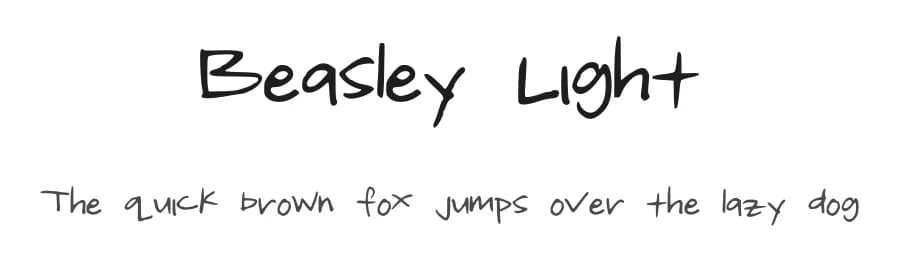
About Beasley Light Font
Beasley Light is a script & handwritten font designed by Huntley-Rodgers. It includes 143 glyphs, a extralight weight, TTF (TrueType) format, and 133 languages. Beasley Light is free to download; check the license details on this page before commercial use. Script & handwritten fonts like Beasley Light work best for wedding invitations, greeting cards, signatures, and elegant branding.
- Ultra-light, Elegant, Flowing, Script
Beasley Light Font is a script font that shines as a display or heading face. Pair it with a clean sans-serif or serif font for body text β the contrast creates a clear hierarchy while the two styles stay balanced and easy to read.